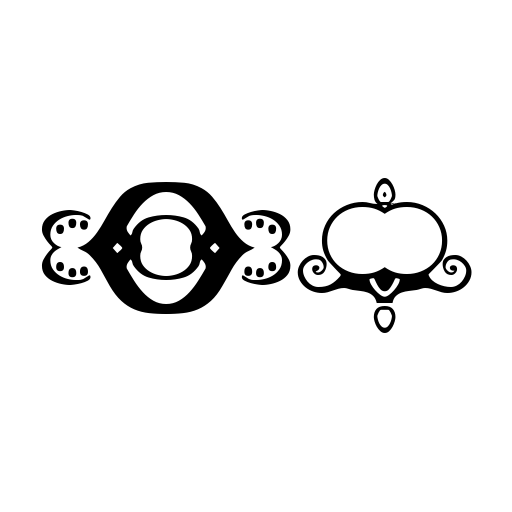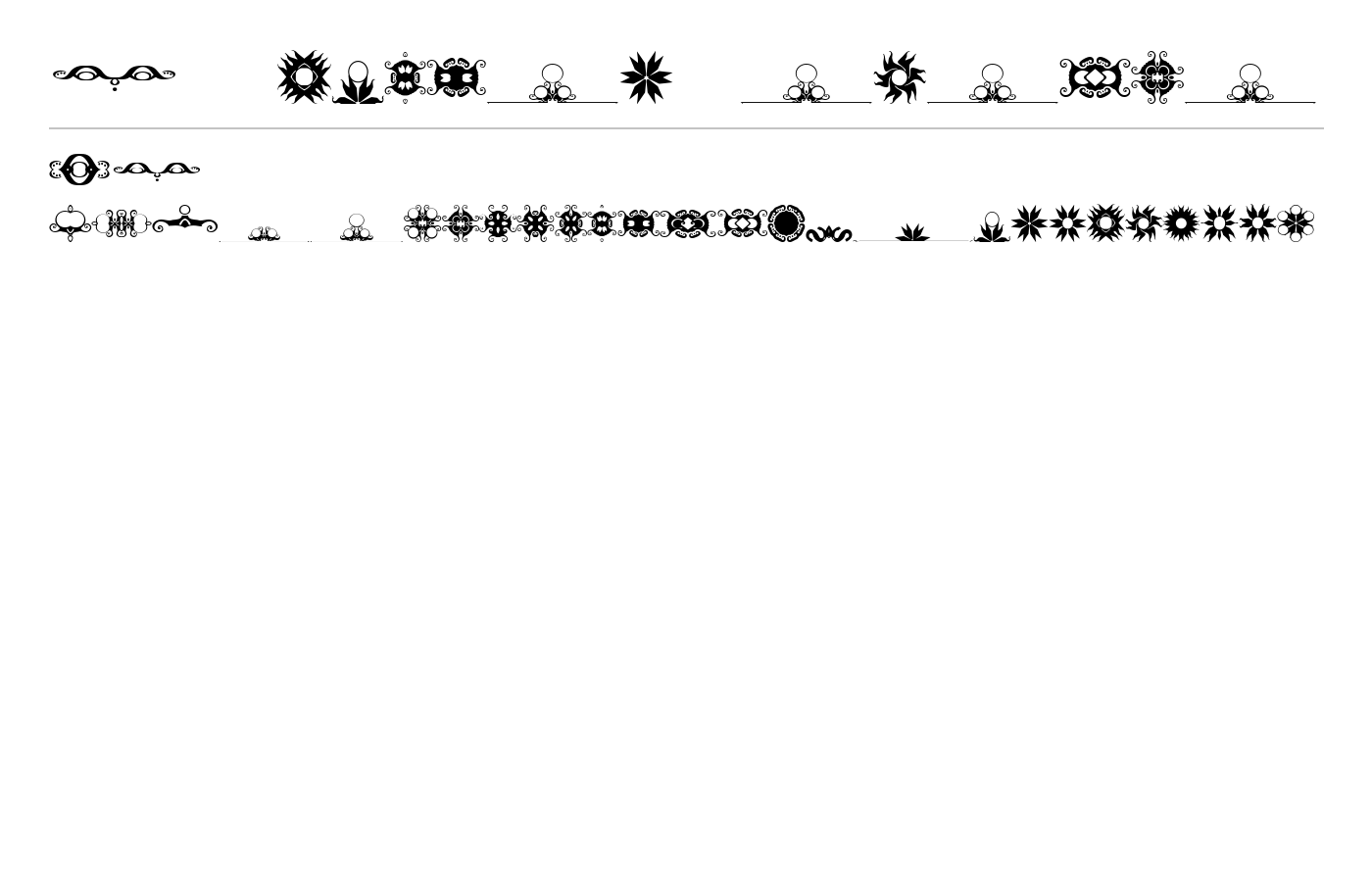
BR Turkles Revenge is a highly decorative display font featuring intricate, ornamental shapes rather than traditional letterforms. Its unique style is playful and artistic, making it ideal for creative design projects, logos, or accents where a whimsical and eye-catching effect is desired rather than for body text or standard readability. This font works best in contexts that call for bold visual statements, such as posters or branding with an artistic flair.
BR Turkles Revenge Font
About BR Turkles Revenge Font